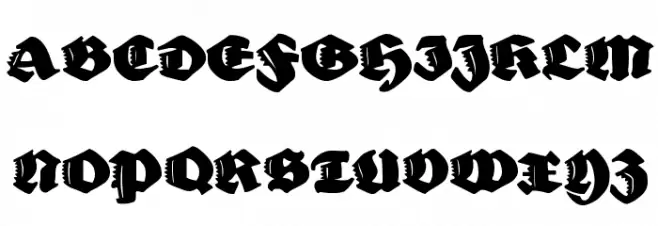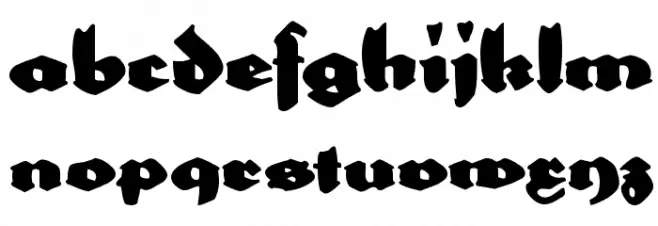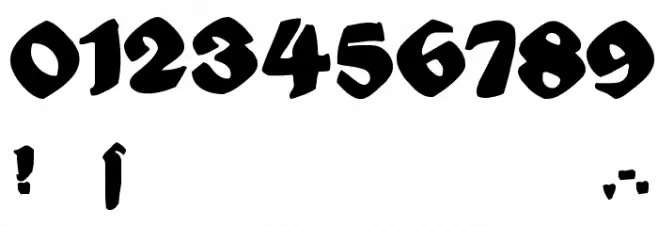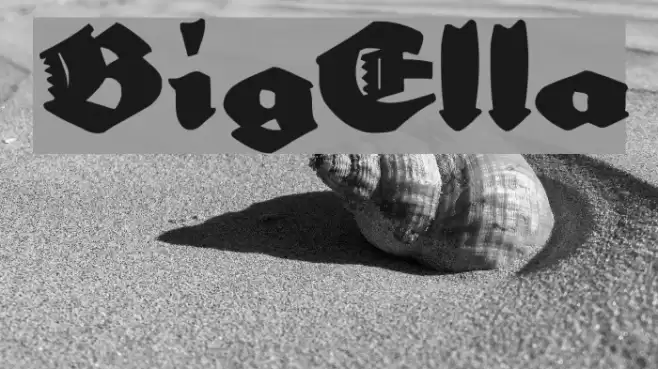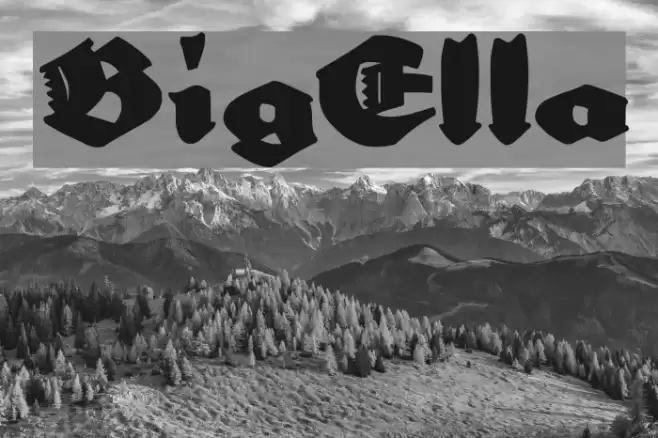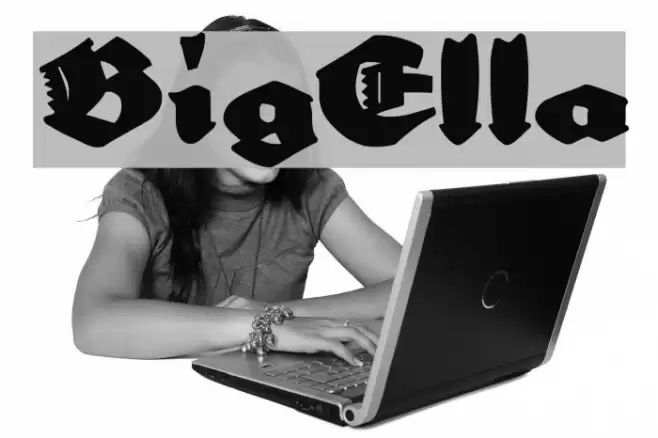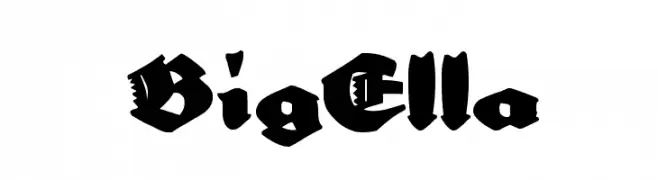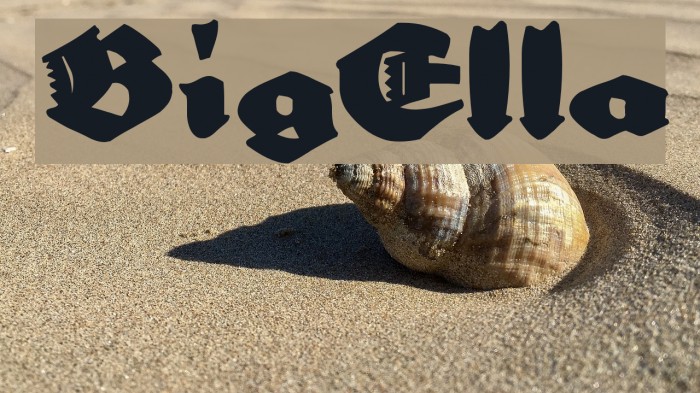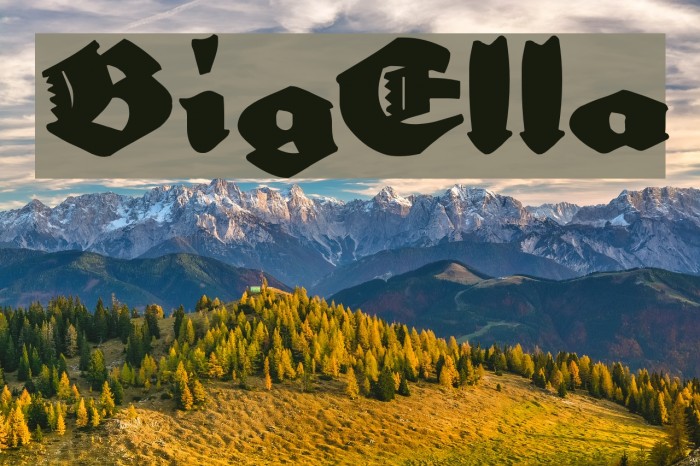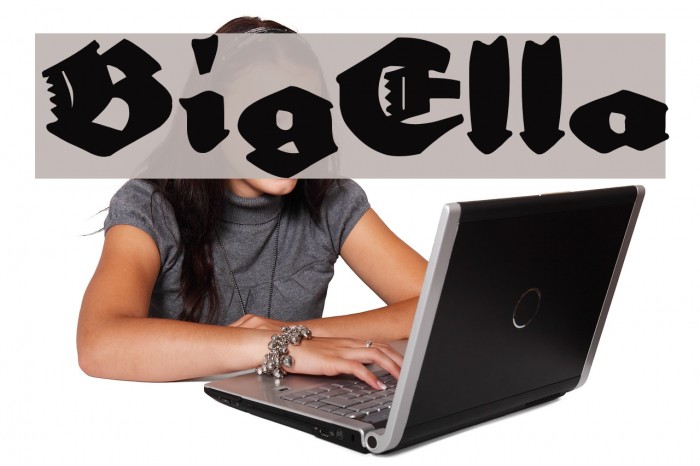
BigElla
This font exhibits a bold and dramatic style, characterized by its thick strokes and sharp, angular edges. It draws inspiration from traditional blackletter typefaces, often associated with medieval manuscripts and Gothic architecture. The uppercase letters are particularly ornate, with intricate details and flourishes that add a sense of grandeur and historical depth. The lowercase letters maintain a consistent weight and style, ensuring readability while preserving the decorative essence. Numbers and special characters are designed to match the overall aesthetic, making this font suitable for projects that require a touch of elegance and historical flair.
A bold, blackletter-inspired font with dramatic strokes and ornate details.
- Proposed Projects: Ideal for use in branding, posters, book covers, and any design project seeking a historical or Gothic touch.
- Category: Blackletter
- Contrast: High
- Overall Style: Vintage
- Use Case: Logos, Headlines, Posters